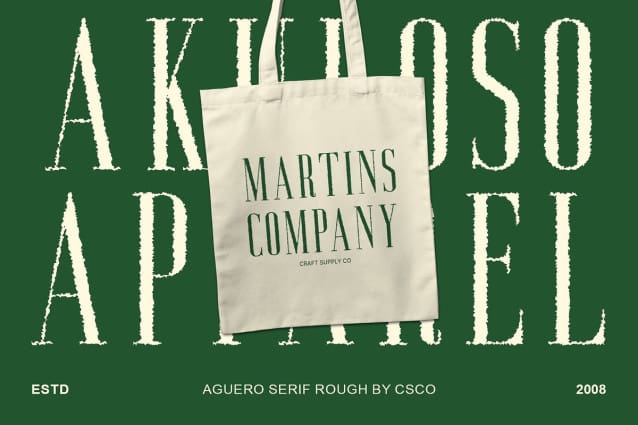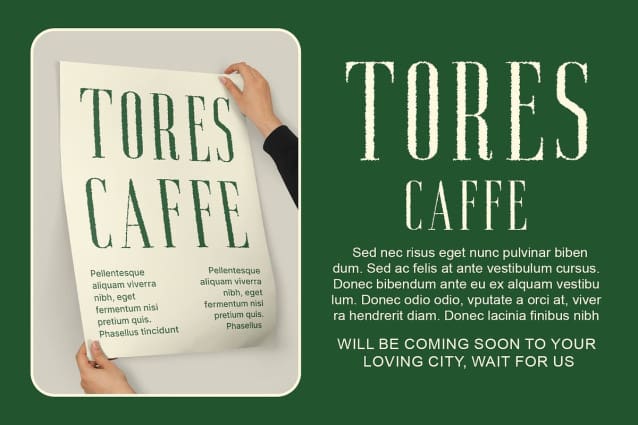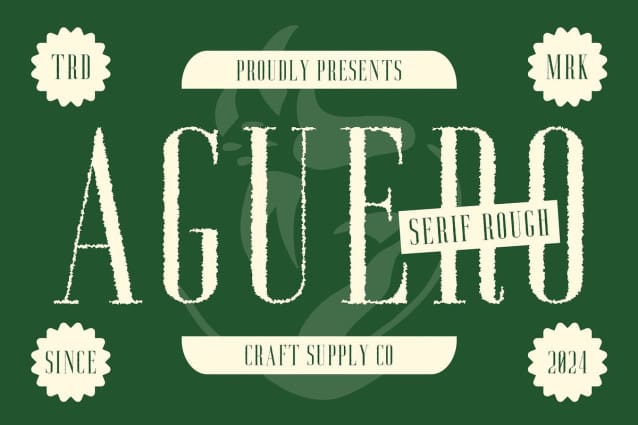
Aguero Serif Rough Font
Aguero Serif Rough Font: Vintage Elegance in High Contrast. Exuding Vintage Charm Aguero Serif Rough combines the timeless allure of vintage typography with modern design elements. Its high contrast and condensed form exude elegance reminiscent of classic serif fonts.
Distinctive Rough Texture The rough texture of This font adds character and depth to its design, evoking a nostalgic feel of aged print materials. Each letter carries a unique charm, enhancing its vintage appeal.
Perfect for Display Purposes Tailored for display use, This font excels in grabbing attention and making a bold statement. Its condensed form and high contrast make it ideal for headlines, banners, and branding materials.
Versatile Application Despite its vintage aesthetic, This font is versatile and adaptable to various design contexts. Whether used in print or digital media, it adds a touch of sophistication and nostalgia to any project.
Timeless Elegance with a Vintage Twist This font blends vintage charm with modern design sensibilities, offering a unique blend of elegance and nostalgia. Its high contrast, condensed form, and rough texture make it an ideal choice for designers seeking to evoke a timeless aesthetic in their projects.